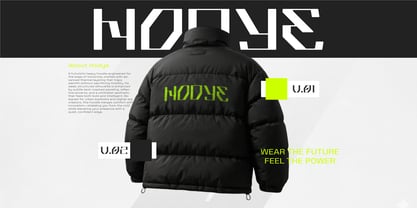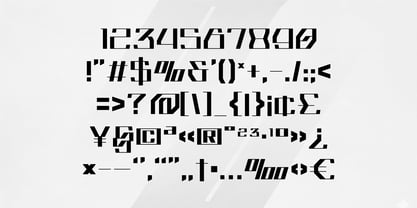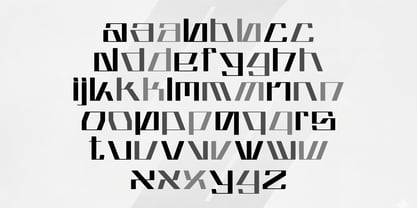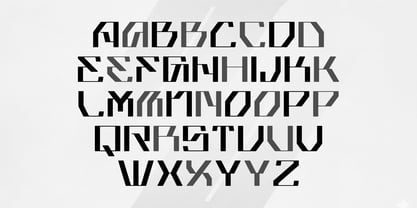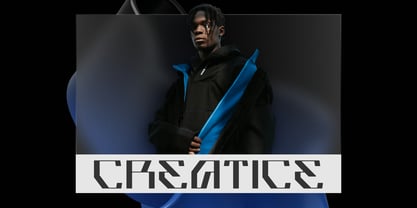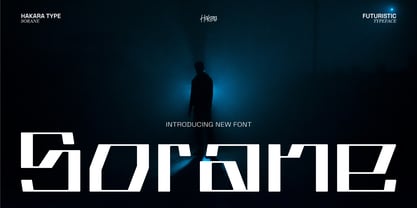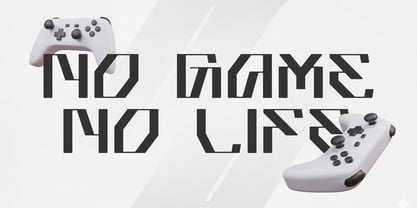
Sorane
by Hakara Type
Sorane is a bold, futuristic display typeface that showcases sharp geometry, angular cuts, and experimental forms. With its cyber-inspired aesthetic, Sorane merges sci-fi visuals with modern typography, resulting in a striking and unconventional appearance.
Each letterform features unique structural details, making it ideal for projects that require attention and a strong visual identity. Perfect for tech branding, futuristic posters, and more, Sorane offers a cutting-edge feel that enhances any composition.
This typeface is particularly well-suited for headlines, logos, posters, album covers, gaming visuals, and digital interfaces, infusing your designs with a distinctive futuristic energy.